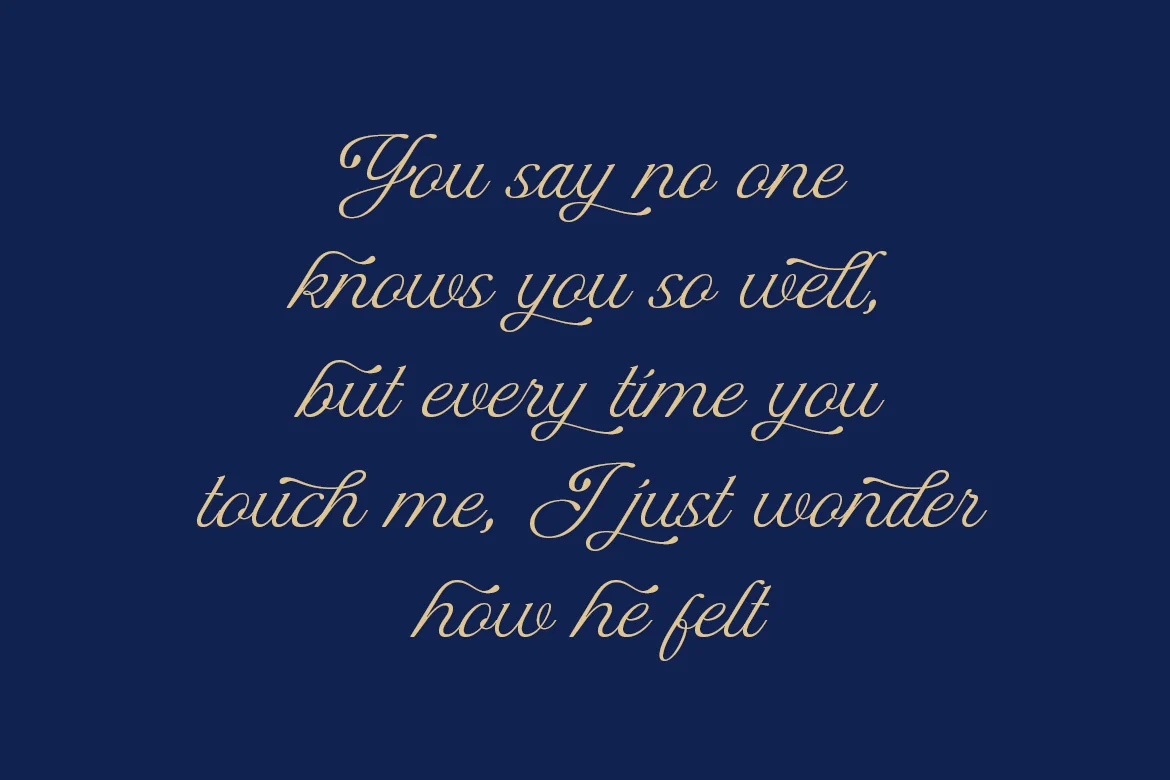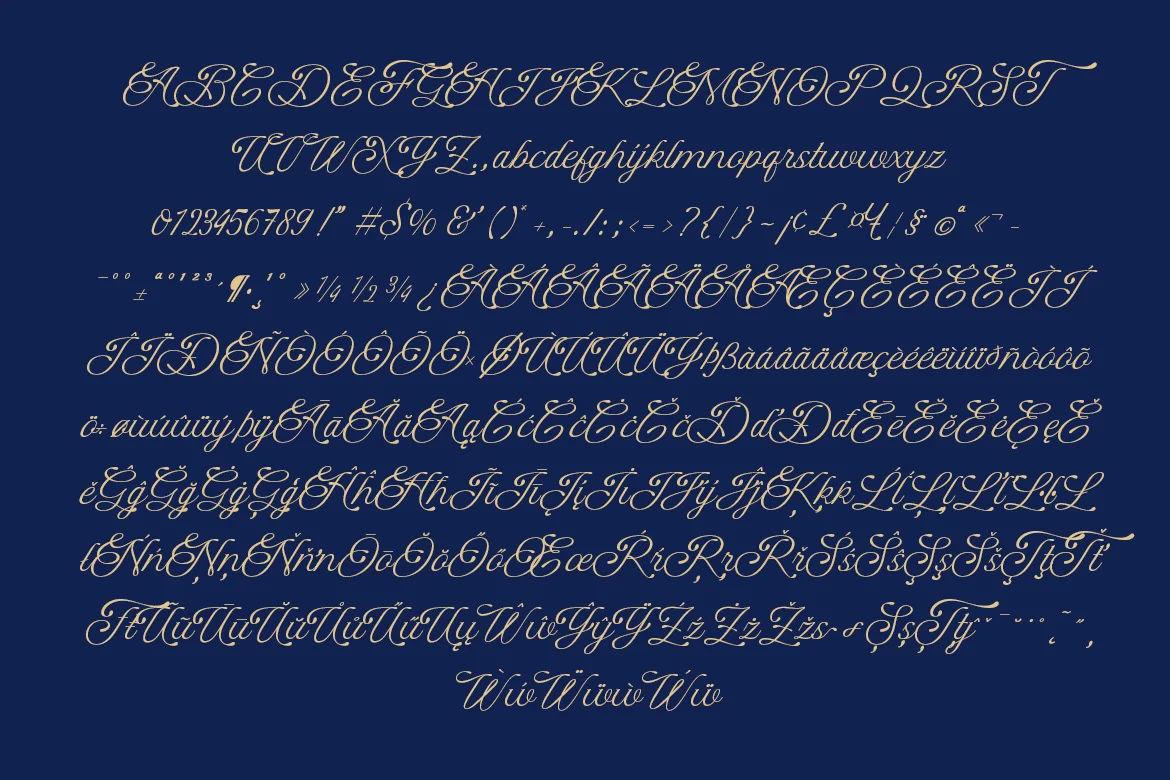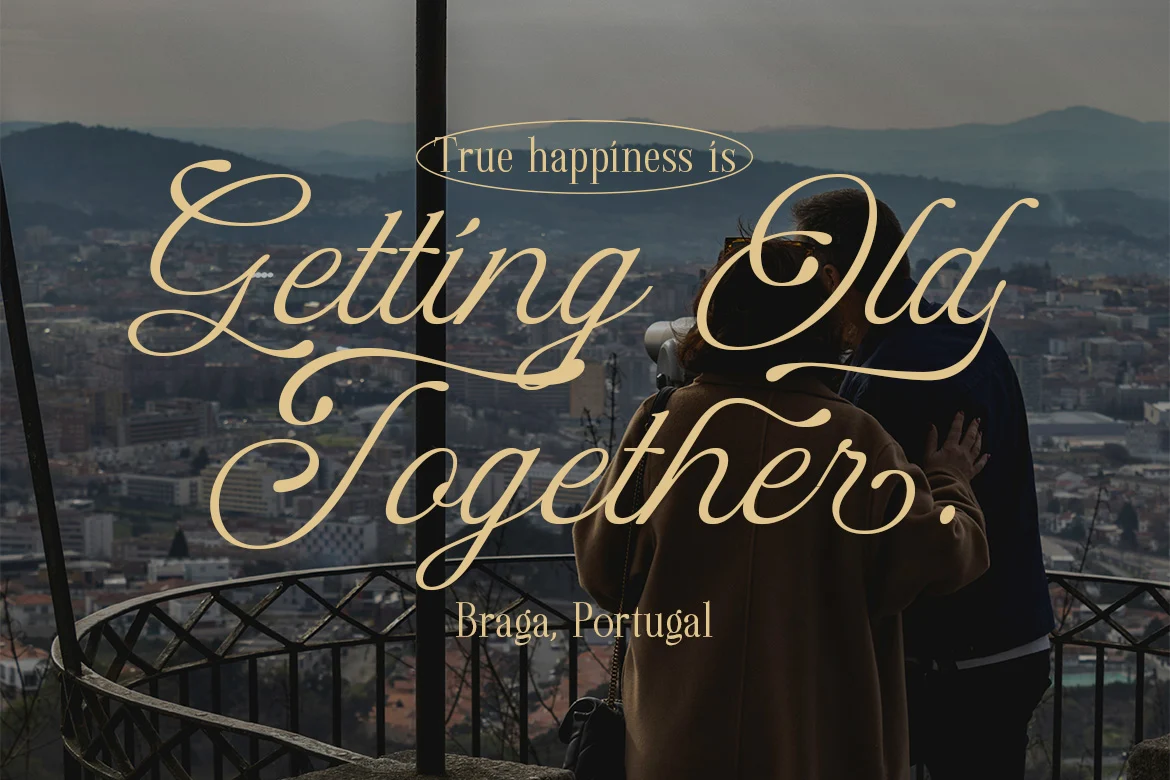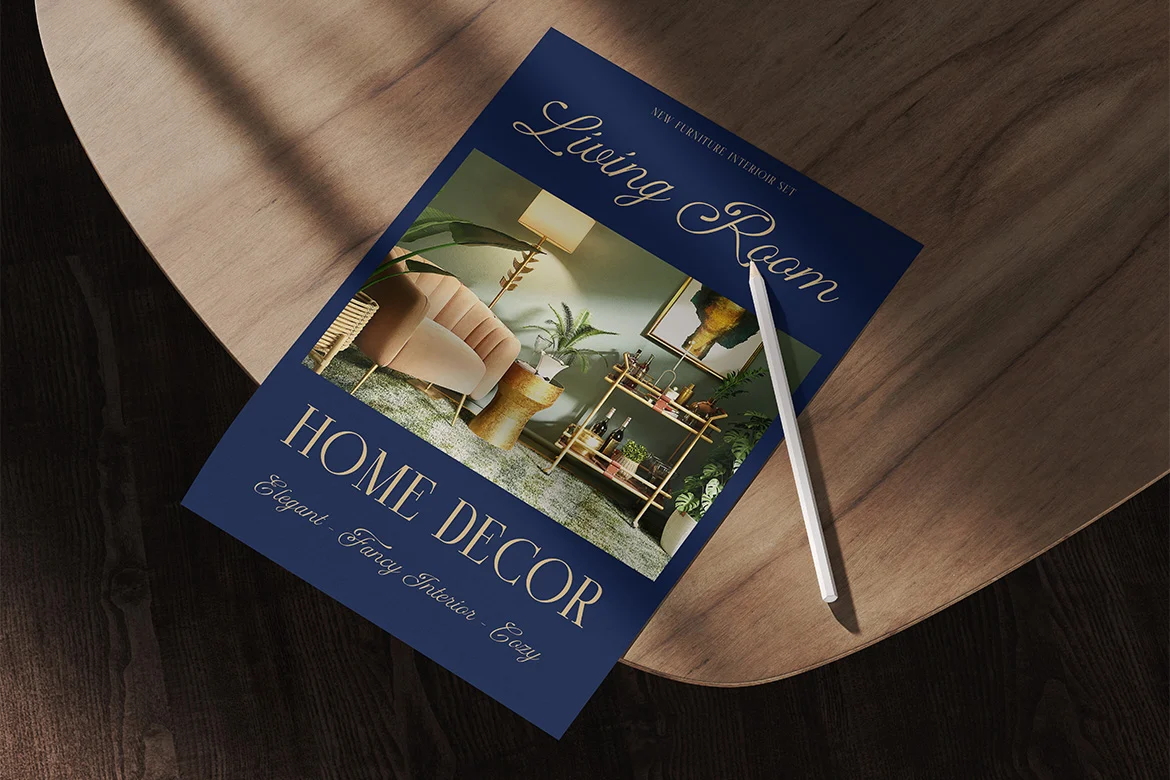
Escape Memories – Font Duo
Escape Memories is a duo font consisting of elegant and classy Serif and Script. Inspired by the creation of this font is intended to pour out beautiful memories, presented in your design that may be printed in physical or digital form. Hopefully by using this font on your design will be an unforgettable memory. The font I created is meaningful & very versatile, suitable for various designs, elevating it to the highest level. Add this font to your favorite creative ideas and see the results!
2 Type Font: Serif & Script
Features: Uppercase, Lowercase, Numbers Punctuation, Alternates, Ligatures & Multilingual Support